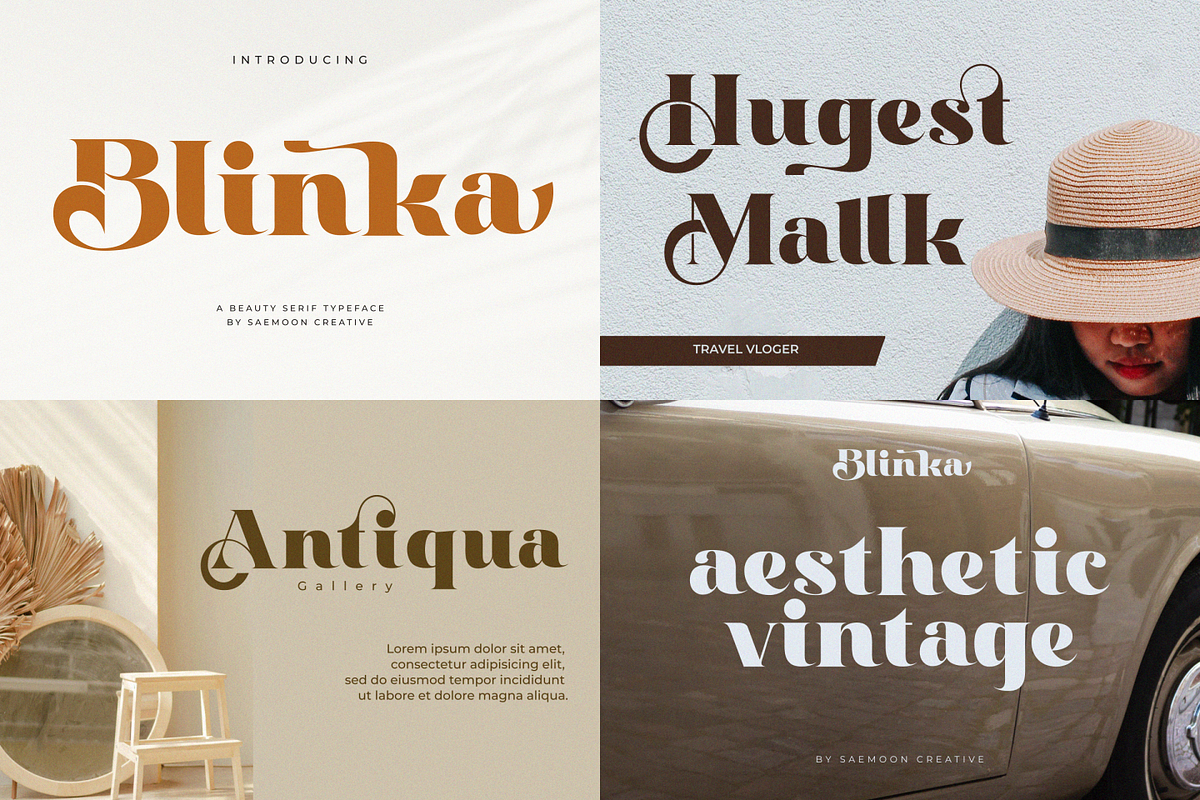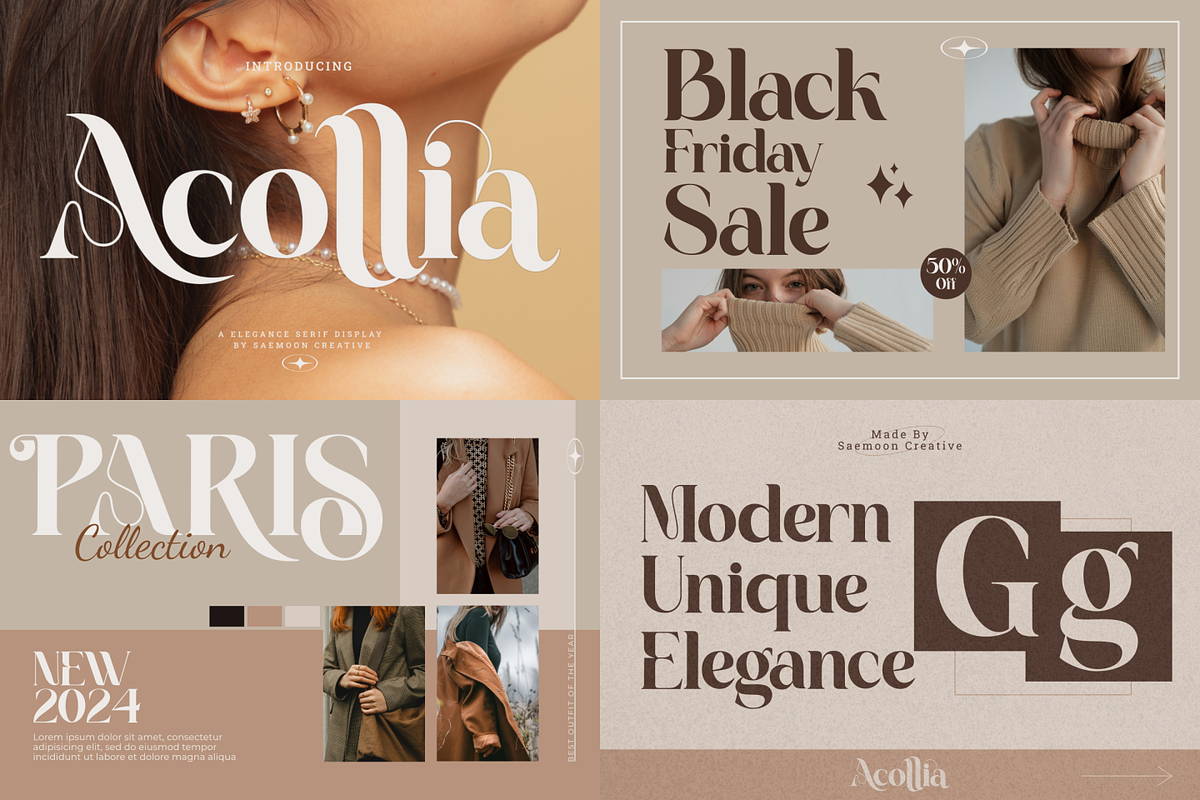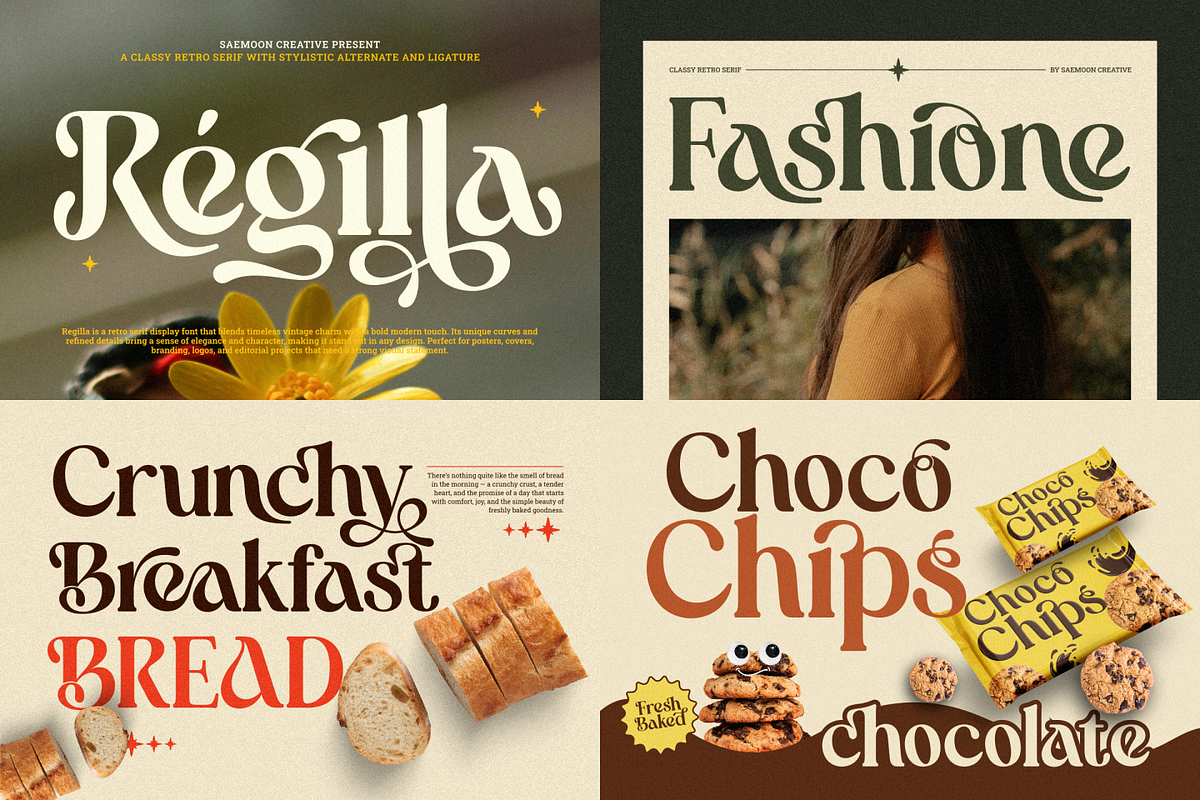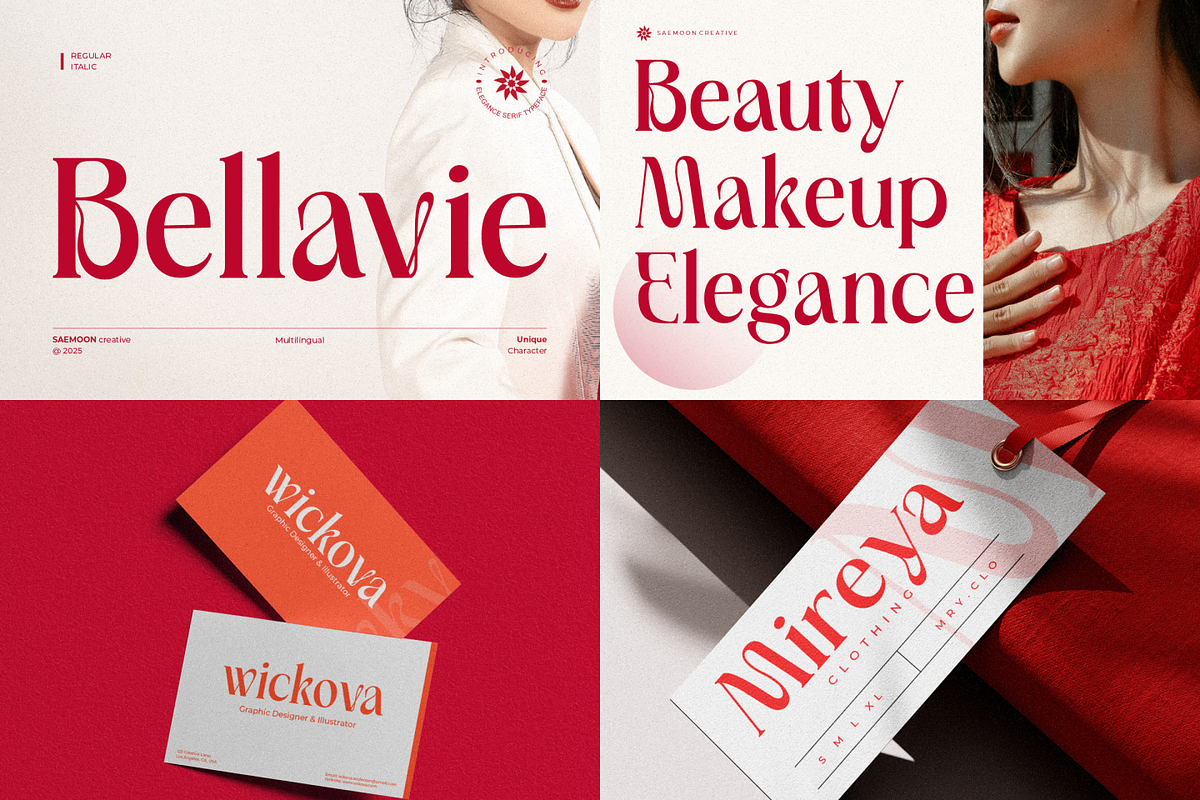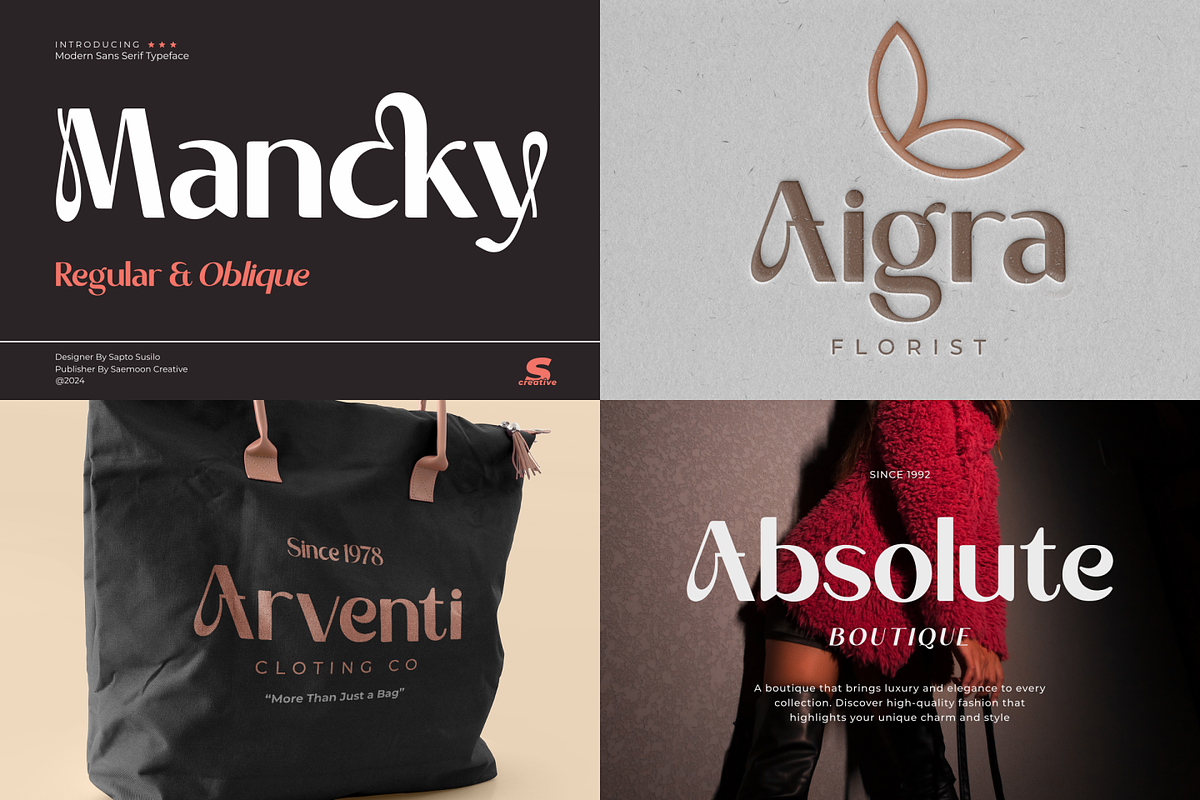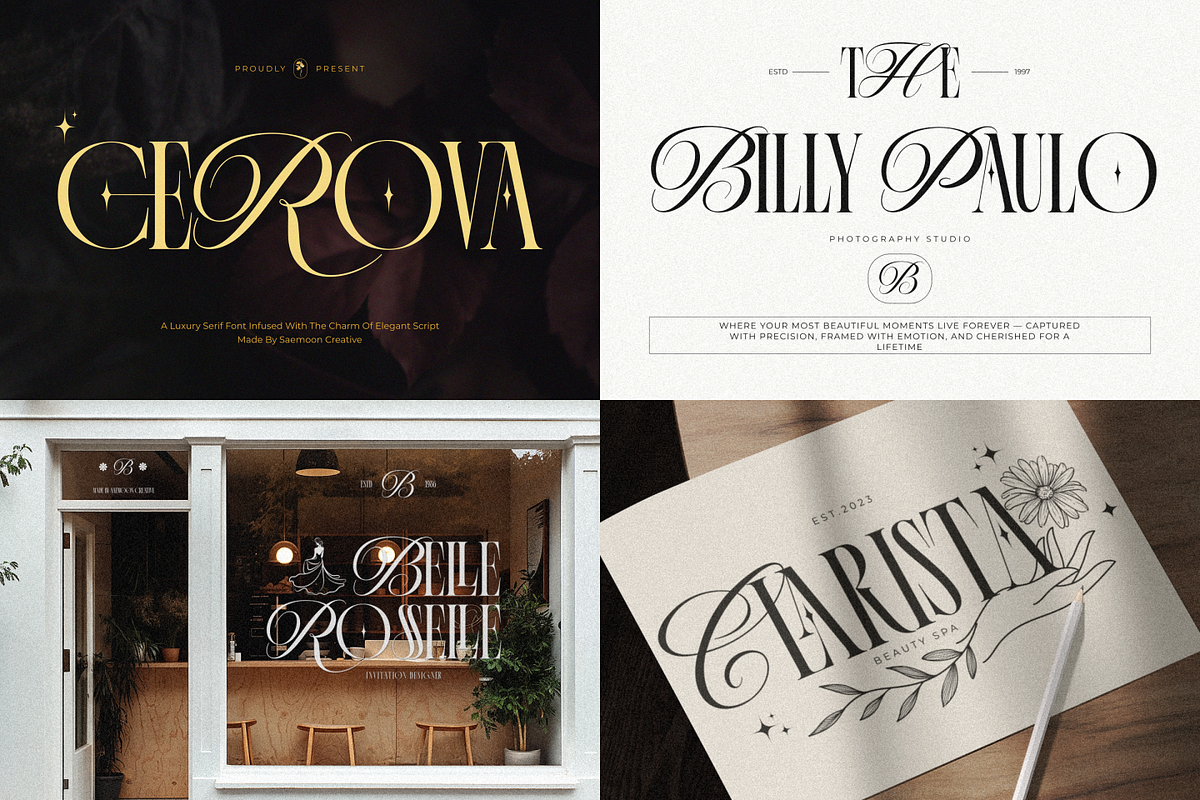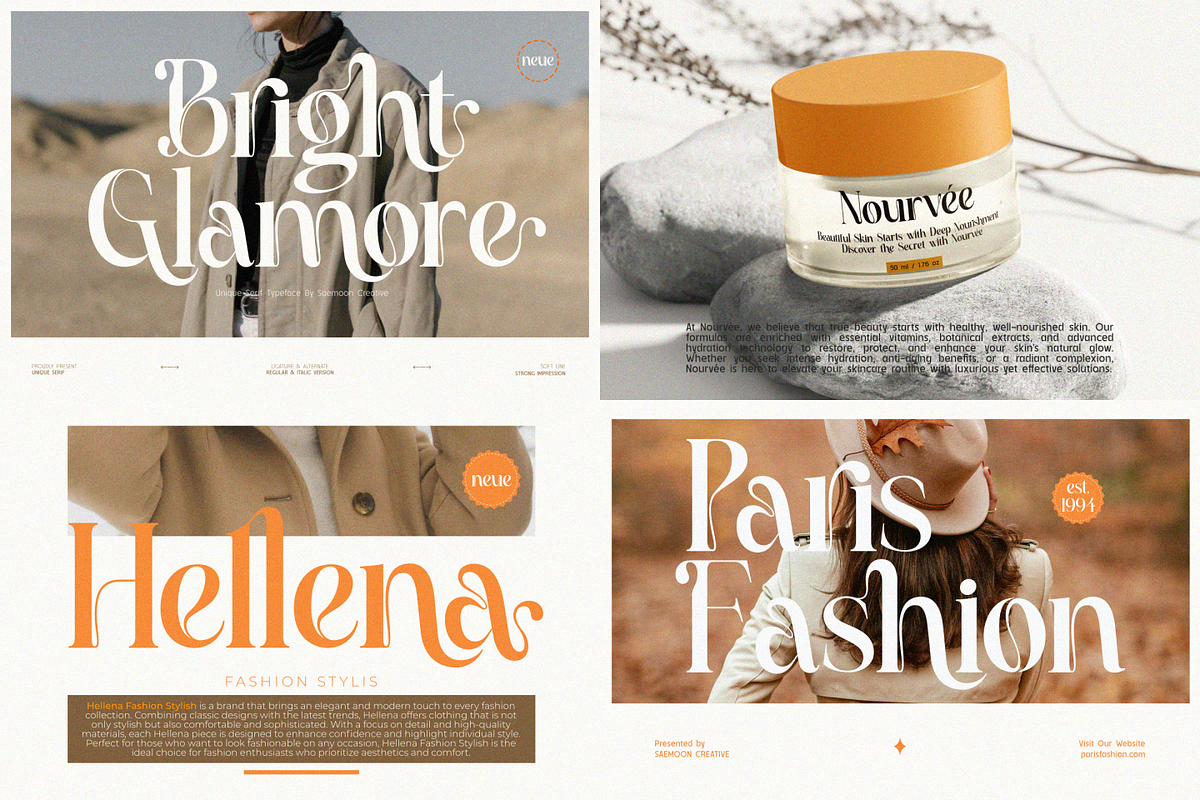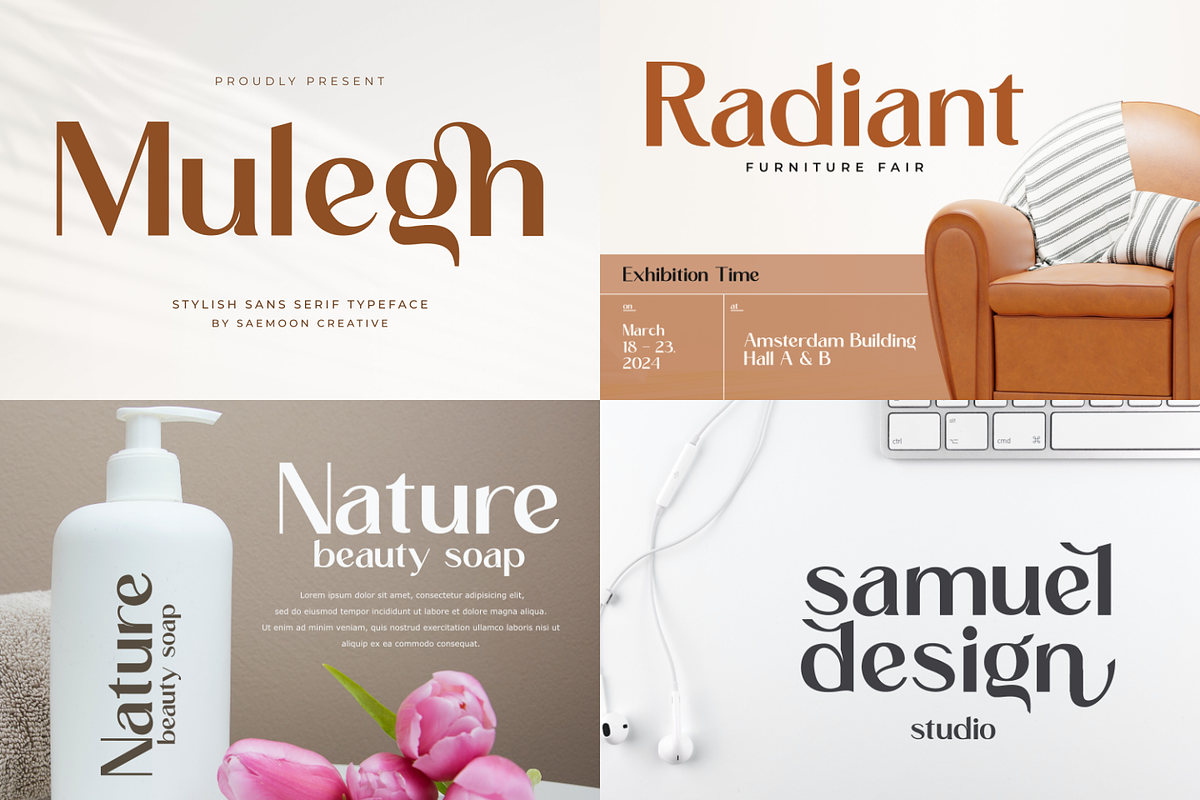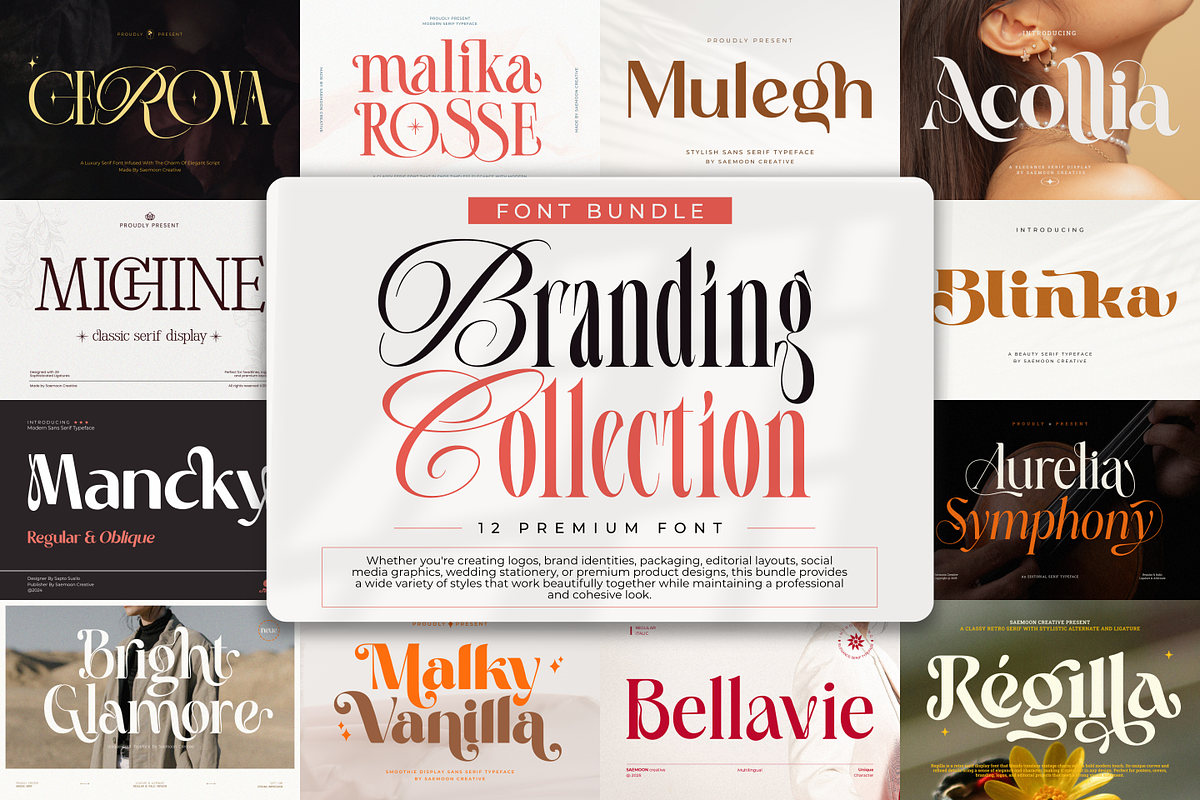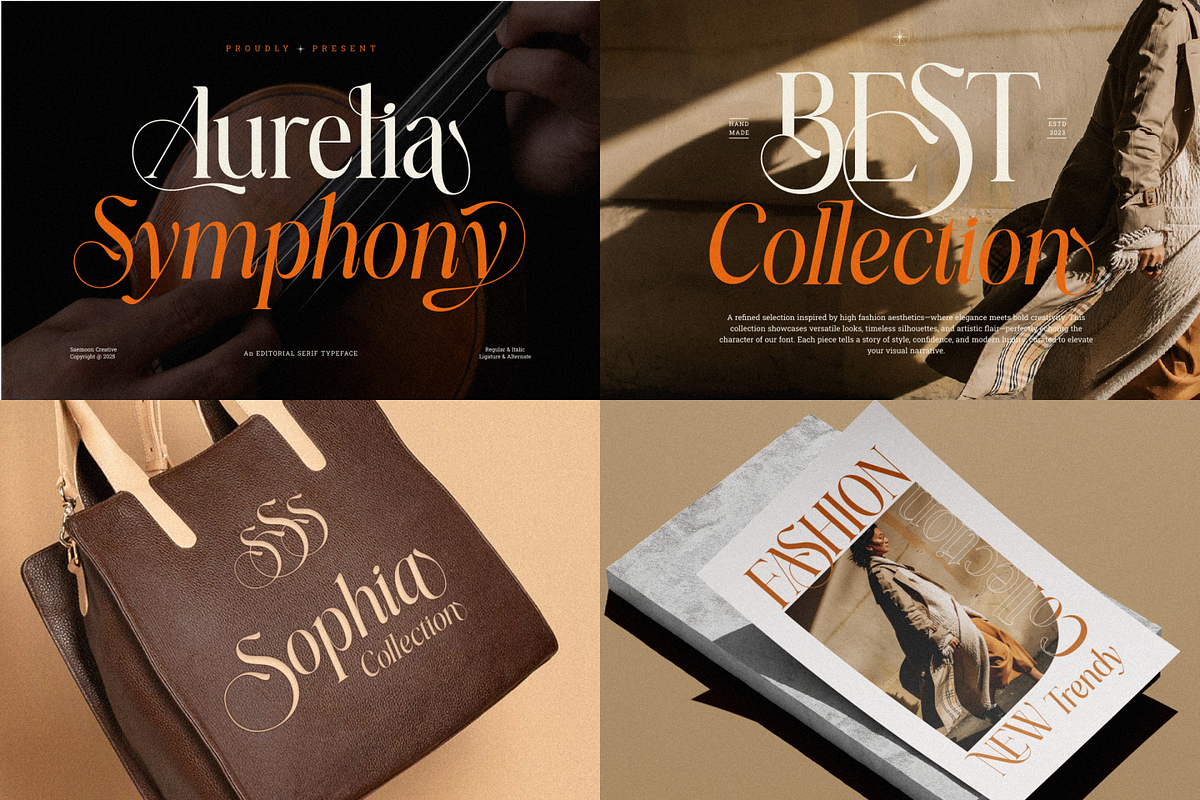
The Ultimate Branding Collection
Branding Collection – 12 Premium Fonts Bundle
Elevate your creative work with the Branding Collection, a carefully curated bundle of 12 premium fonts designed to help you create distinctive and memorable brand identities. Featuring a beautiful combination of elegant serifs, modern sans serifs, stylish display fonts, and expressive scripts, this collection is perfect for both professional designers and creative entrepreneurs.
Whether you're designing logos, luxury branding, editorial layouts, product packaging, social media graphics, wedding stationery, or premium marketing materials, the Branding Collection offers the versatility and quality you need in one complete package.
12 Premium Fonts
Serif, Sans Serif, Display & Script Styles
Ligatures & Stylistic Alternates
Uppercase & Lowercase Characters
Branding & Visual Identity
Luxury Packaging
Fashion & Beauty
Editorial Design
Wedding Invitations
Social Media
Website Headers
Product Labels
Creative Projects
Bundle Includes
Cerova
Malika Rosse
Mulegh
Acollia
Michine
Blinka
Mancky
Aurelia Symphony
Brights Glamore
Malky Vanilla
Bellavie
Regilla